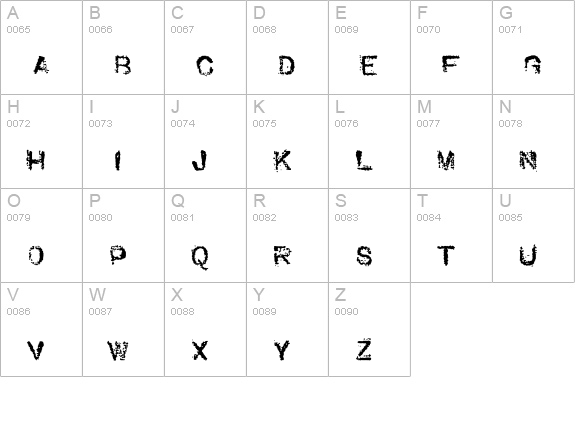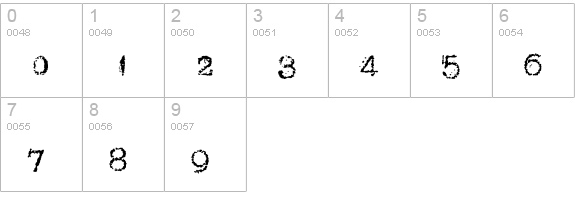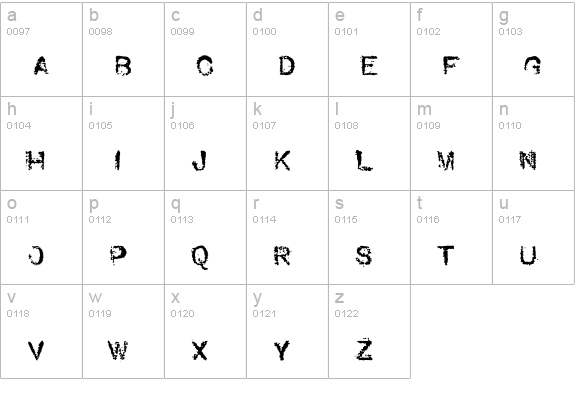
VTypewriter-RemingtonPerfected Font Details
Introducing VTypewriter-RemingtonPerfected, a beautifully crafted font that brings a touch of nostalgia and elegance to your designs. This font is inspired by the timeless charm of vintage typewriters, capturing the essence of a bygone era. With its classic and sophisticated appearance, VTypewriter-RemingtonPerfected exudes a sense of authenticity and craftsmanship. Every character is meticulously designed to resemble the imprints left by an old typewriter, complete with imperfect alignment and subtle variations in ink intensity. The versatility of VTypewriter-RemingtonPerfected is truly remarkable. It effortlessly complements a wide range of design projects, from vintage-inspired branding to editorial layouts, and everything in between. Whether you're creating a retro poster, a book cover, or a nostalgic logo, this font will effortlessly transport your audience to a world of timeless elegance. What sets VTypewriter-RemingtonPerfected apart is not only its impeccable design, but also its accessibility. This font is freely available to download at FontsMarket.com, allowing designers and enthusiasts alike to easily incorporate its unique charm into their creative endeavors. Embrace the beauty of the past and infuse your designs with a touch of nostalgia, all with the convenience of a free download. So, if you're searching for a font that speaks volumes about craftsmanship, authenticity, and timeless appeal, look no further than VTypewriter-RemingtonPerfected. Download it today and unlock a world of unlimited creative possibilities.